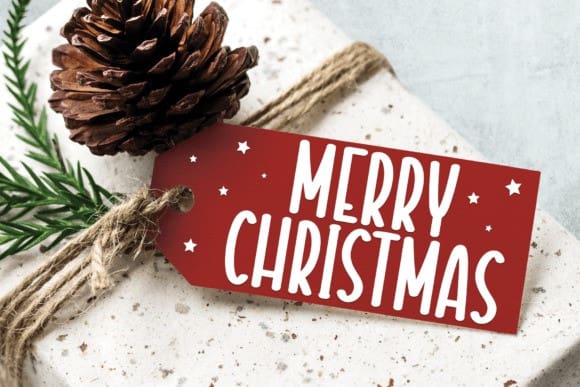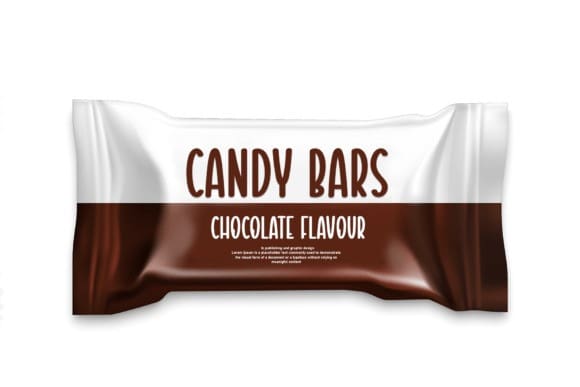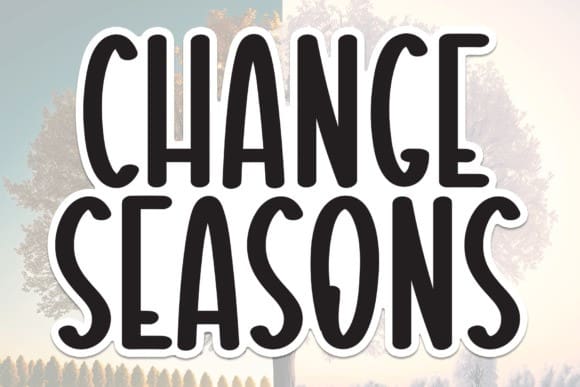
Change Seasons Font
Change Seasons is a sweet and friendly handwritten font. Its natural and unique style makes it incredibly fitting to a large pool of designs. The only limit is your imagination!